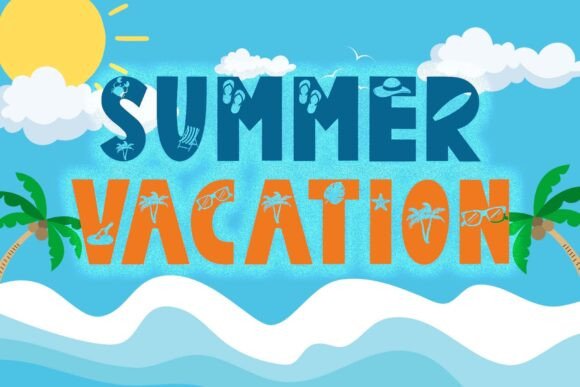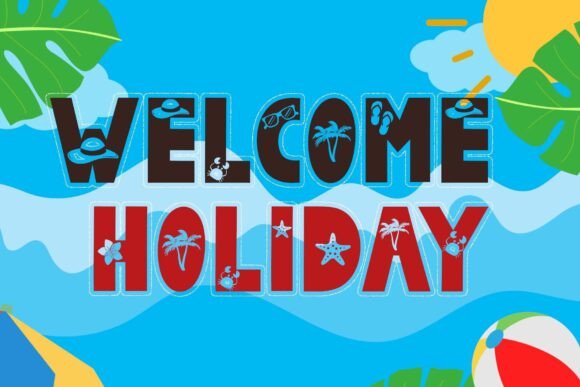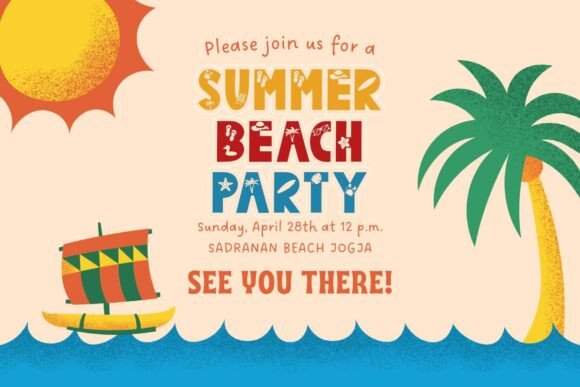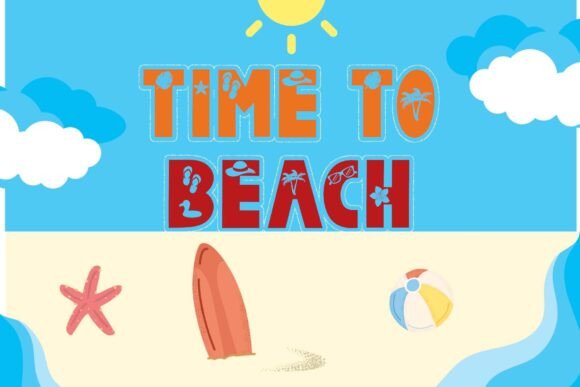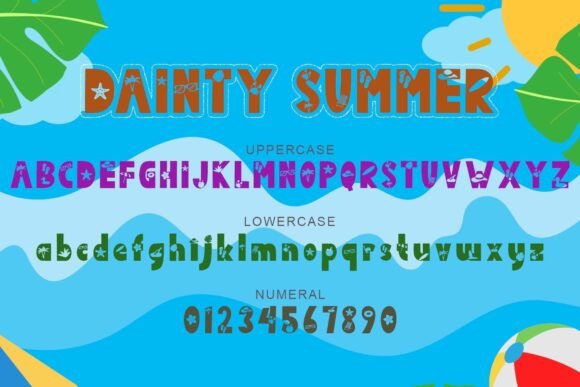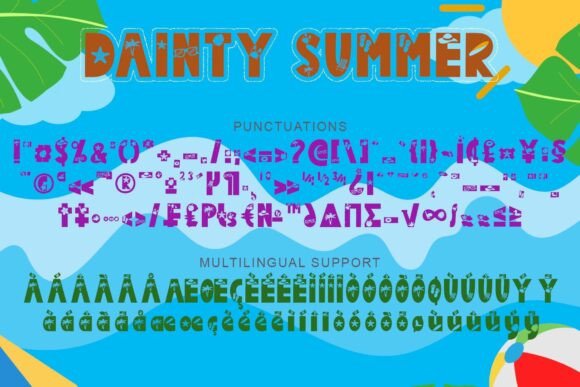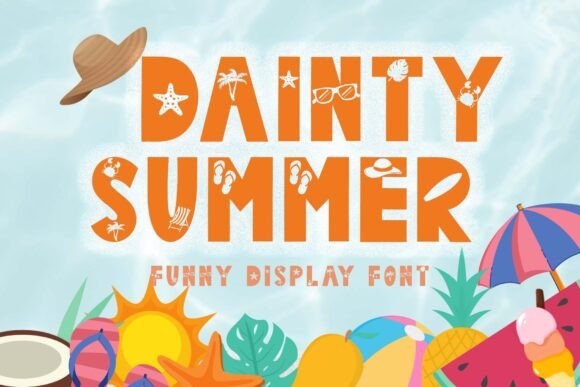
Dainty Summer Font: The Perfect Addition to Your Summer Designs
Are you looking for a font that captures the essence of summer? Look no further than the Dainty Summer Font. This unique and adorable display font is perfect for adding a touch of warmth and playfulness to your designs. In this article, we’ll take a closer look at the features of Dainty Summer Font and how it can elevate your summer-themed designs.
What is Dainty Summer Font?
Dainty Summer Font is a carefully crafted display font that is inspired by the carefree spirit of summer. It’s a versatile font that features a range of characters, including uppercase and lowercase letters, numbers, punctuation, and multilingual support. The font is designed to be easy to read and visually appealing, making it perfect for use in a variety of design projects.
Key Features of Dainty Summer Font
- Unique and Cute Design: Dainty Summer Font features a one-of-a-kind design that’s sure to make your designs stand out. The font is adorned with summer-themed shapes and motifs, making it perfect for summer-inspired projects.
- Variety of Characters: The font includes uppercase and lowercase letters, numbers, punctuation, and multilingual support, giving you the flexibility to create a wide range of designs.
- Multilingual Support: Dainty Summer Font supports multiple languages, making it a great choice for designers who work with international clients or want to create designs for a global audience.
Summer and Mother’s Day Related Shapes: The font comes equipped with a range of summer and Mother’s Day-related shapes, making it easy to add a personal touch to your designs.
Perfect for Summer Designs
Dainty Summer Font is the perfect choice for designers who want to create summer-themed designs that are fun, playful, and eye-catching. The font is ideal for use in:
- Summer Flyers and Brochures: Add a touch of summer fun to your marketing materials with Dainty Summer Font.
- Social Media Graphics: Create engaging social media graphics that capture the essence of summer with this adorable font.
- Invitations and Party Decor: Use Dainty Summer Font to create custom invitations and party decor that sets the tone for a fun and festive celebration.
- Camping and Outdoor Designs: The font’s summer-inspired design makes it perfect for camping and outdoor-themed designs, such as posters, stickers, and more.
Why Designers and Crafters Love Dainty Summer Font
Dainty Summer Font is a must-have for designers and crafters who want to add a personal touch to their summer designs. Here are just a few reasons why:
- High-Quality Design: Dainty Summer Font features a high-quality design that’s sure to impress.
- Unique and Versatile: The font’s unique design and versatility make it perfect for a wide range of design projects.
Dainty Summer Font is a unique and adorable display font that’s perfect for adding a touch of summer fun to your designs. With its range of characters, summer-themed shapes, and multilingual support, this font is sure to become a staple in your design collection. Whether you’re a designer, crafter, or DIY enthusiast, Dainty Summer Font is a must-have for creating summer-inspired designs that are fun, playful, and eye-catching.